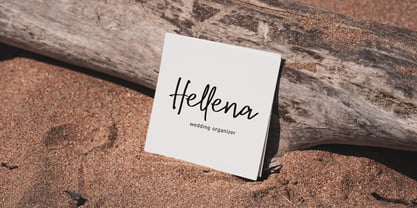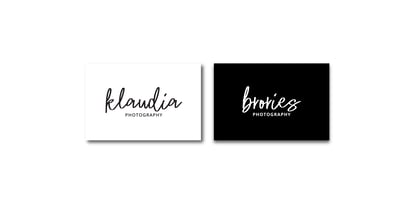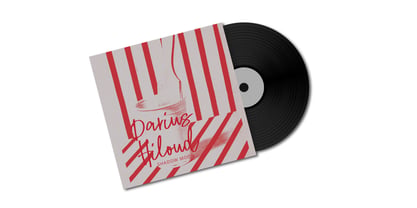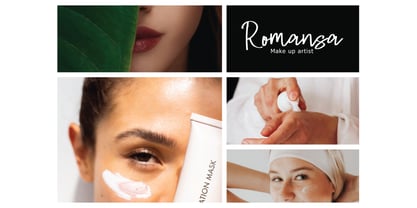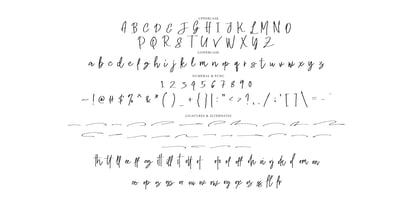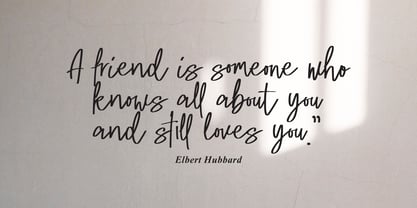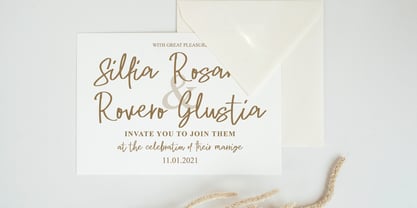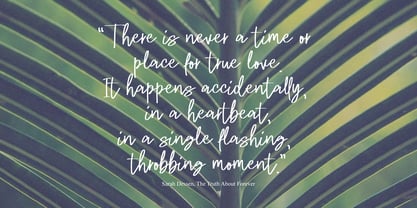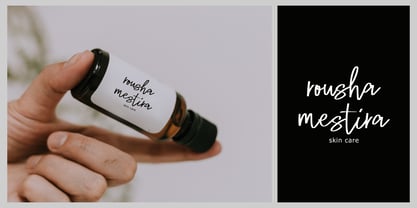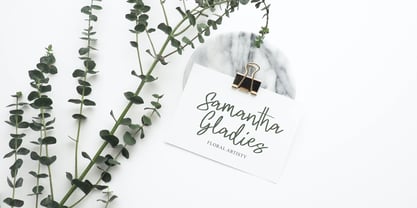
Fokties Signature
La familia tipográfica Fokties Signature fue diseñada por Dzulka Elfira y publicada por Tebaltipis Studio. Fokties Signature contiene 1 estilos. Más información sobre esta familia
Fokties Signature with a handmade Signature style, decorative characters and a dancing baseline! So beautiful on invitation like greeting cards, branding materials, business cards, quotes, posters, and more!!
Fokties Signature come with 200+ glyphs. The alternative characters were divided into several Open Type features such as Swash, Stylistic Sets, Stylistic Alternates, and Ligature. The Open Type features can be accessed by using Open Type savvy programs such as Adobe Illustrator, Adobe InDesign, Adobe Photoshop Corel Draw X version, And Microsoft Word. And this Font has given PUA unicode (specially coded fonts). so that all the alternate characters can easily be accessed in full by a craftsman or designer.